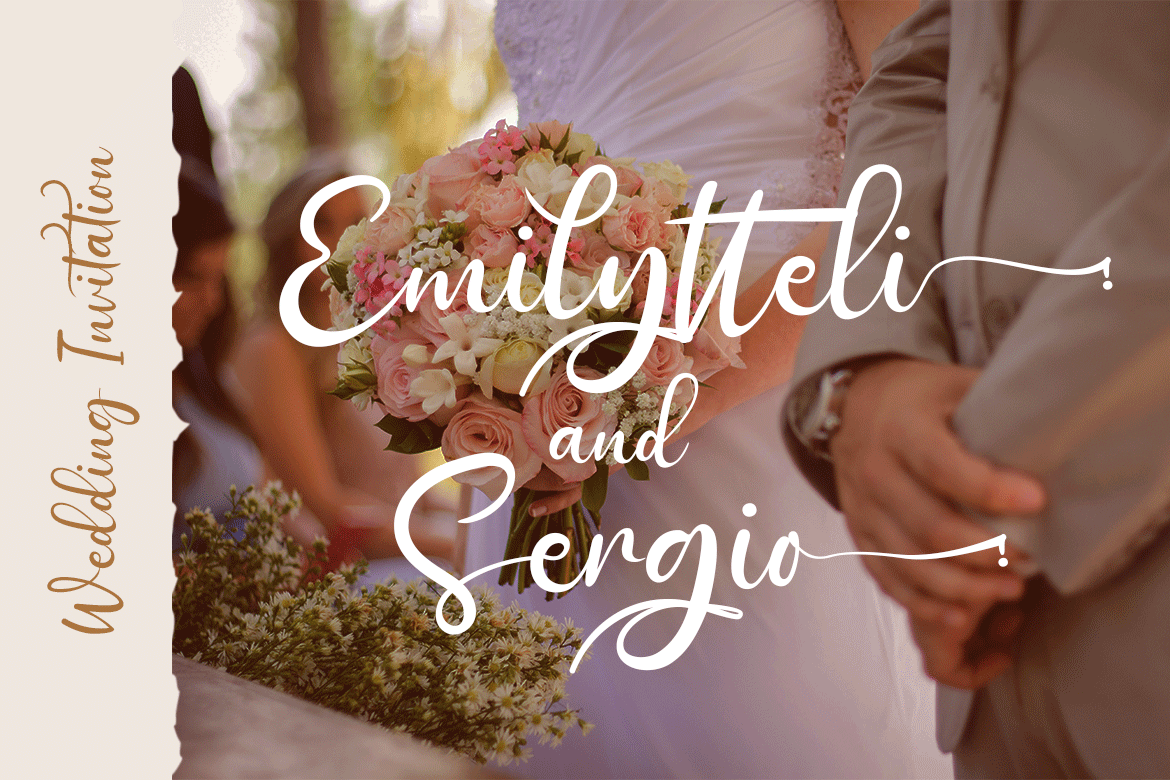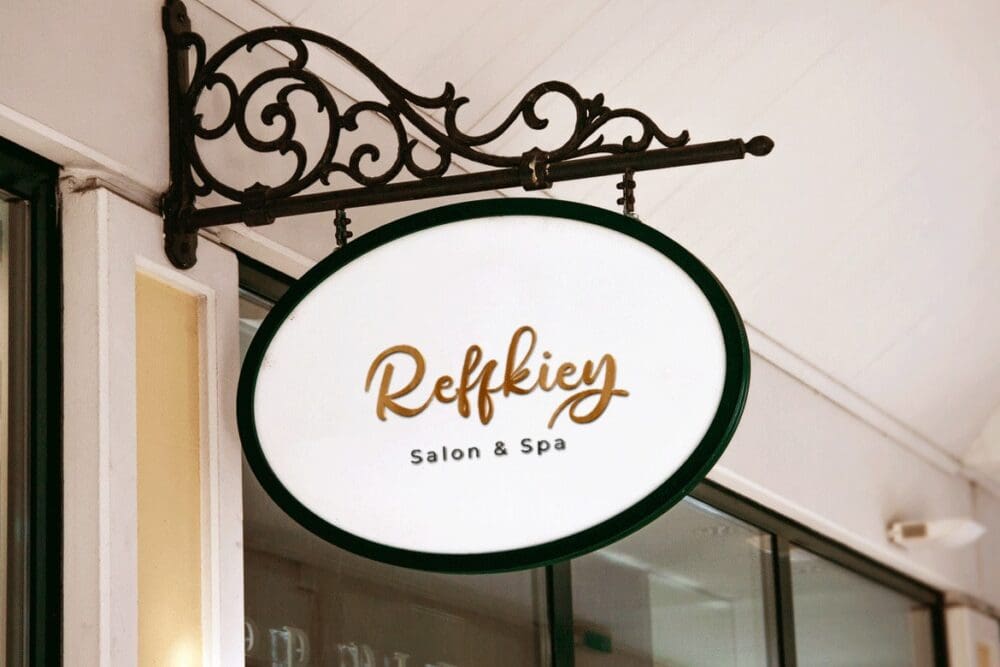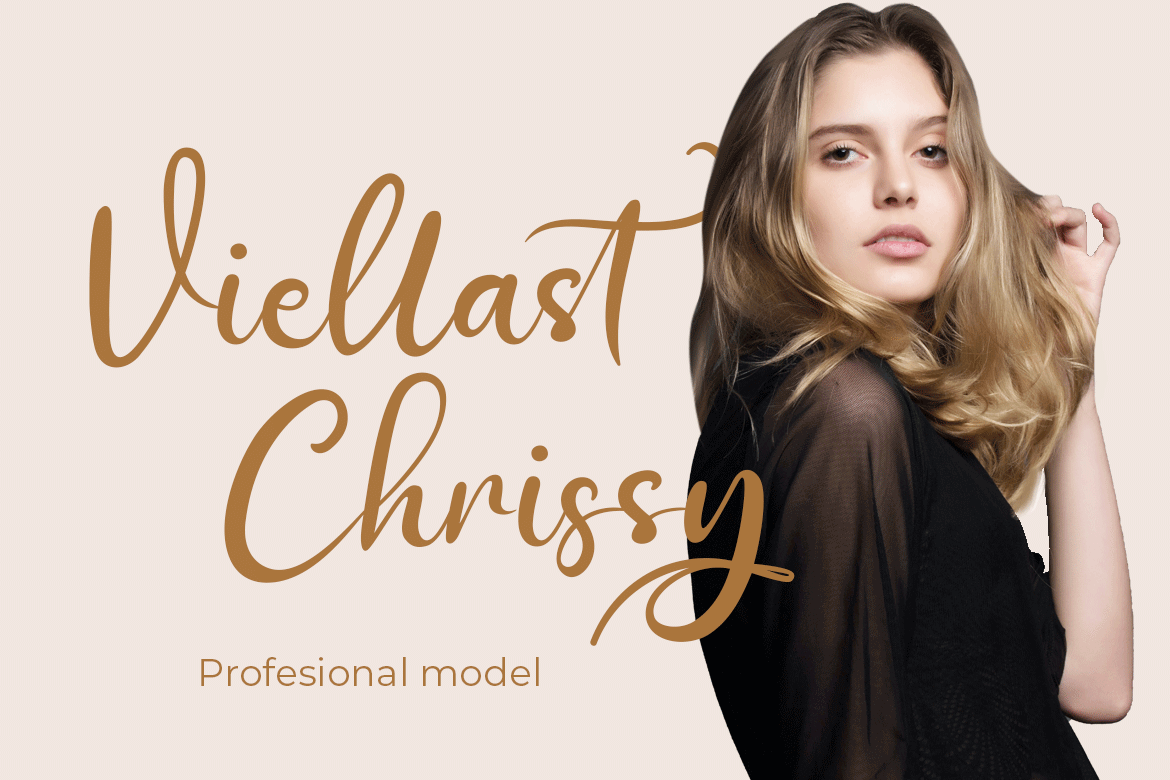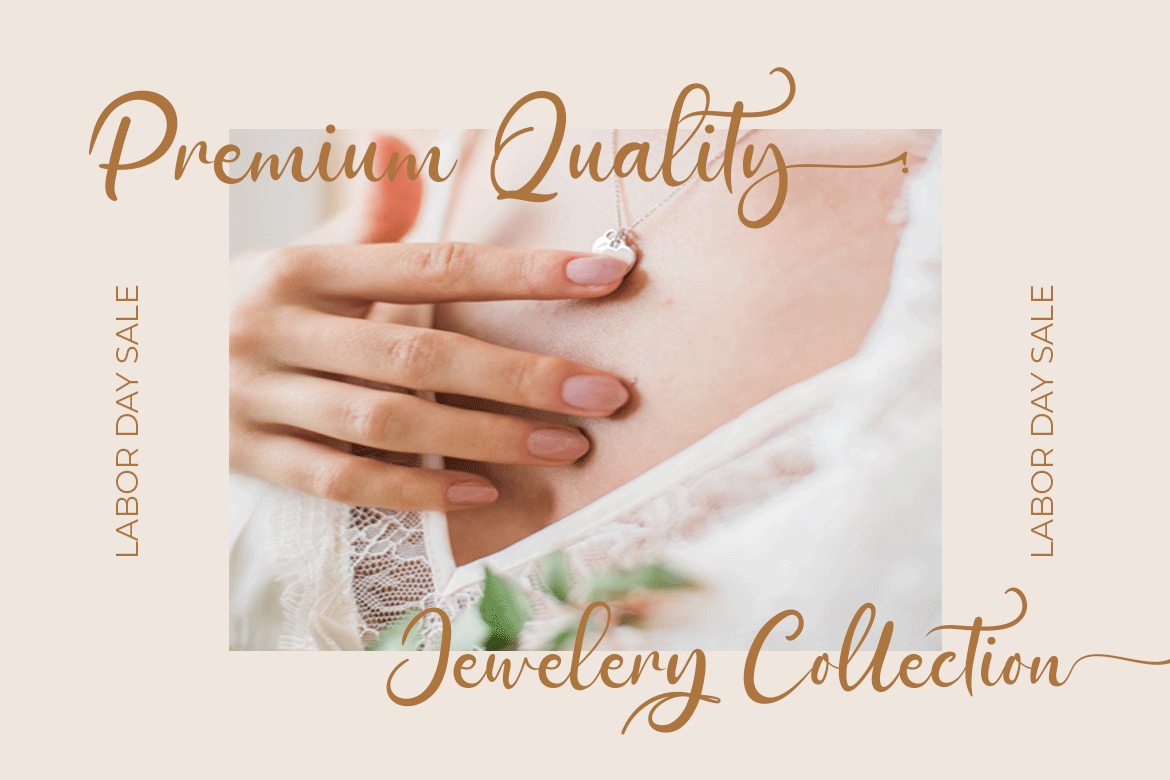
Adiystas Font
Adiystas is a dramatic Script Font written in a cute, modern, and elegant style, with natural and beautiful strokes. This font in addition to having a dazzling and unique shape is also equipped with various options that support good and elegant results when you use it and your project.